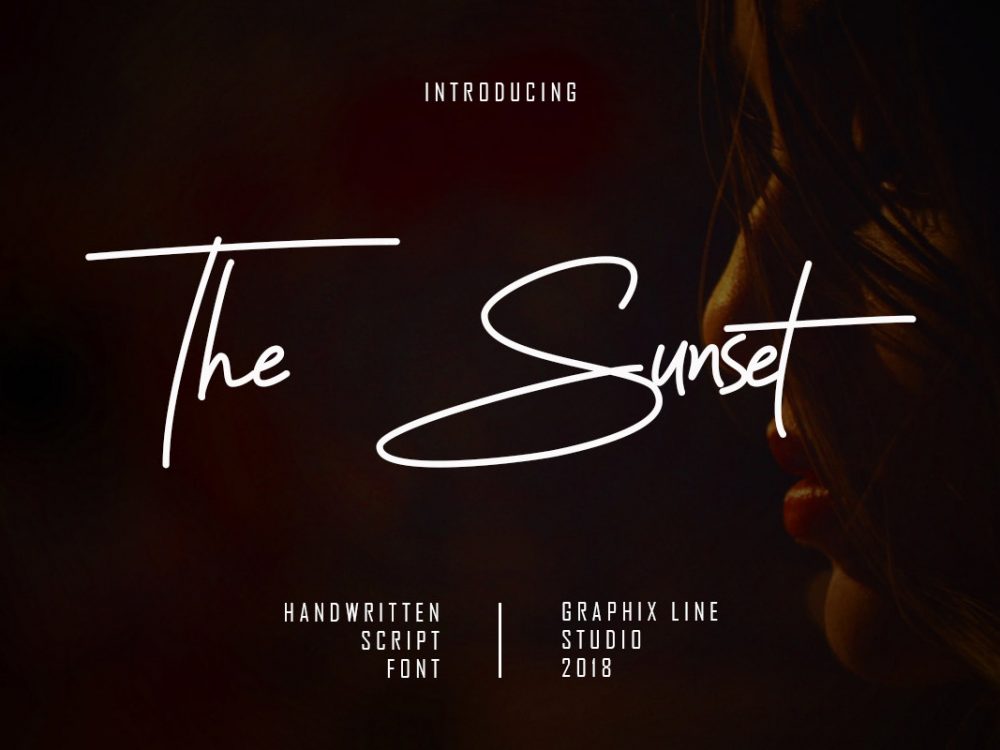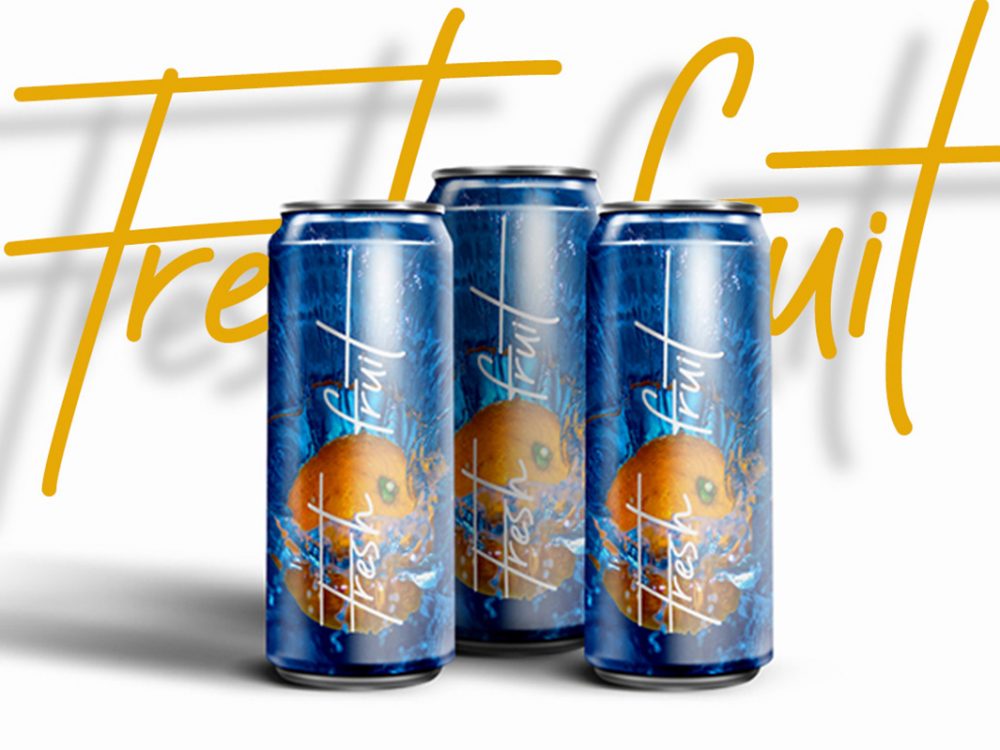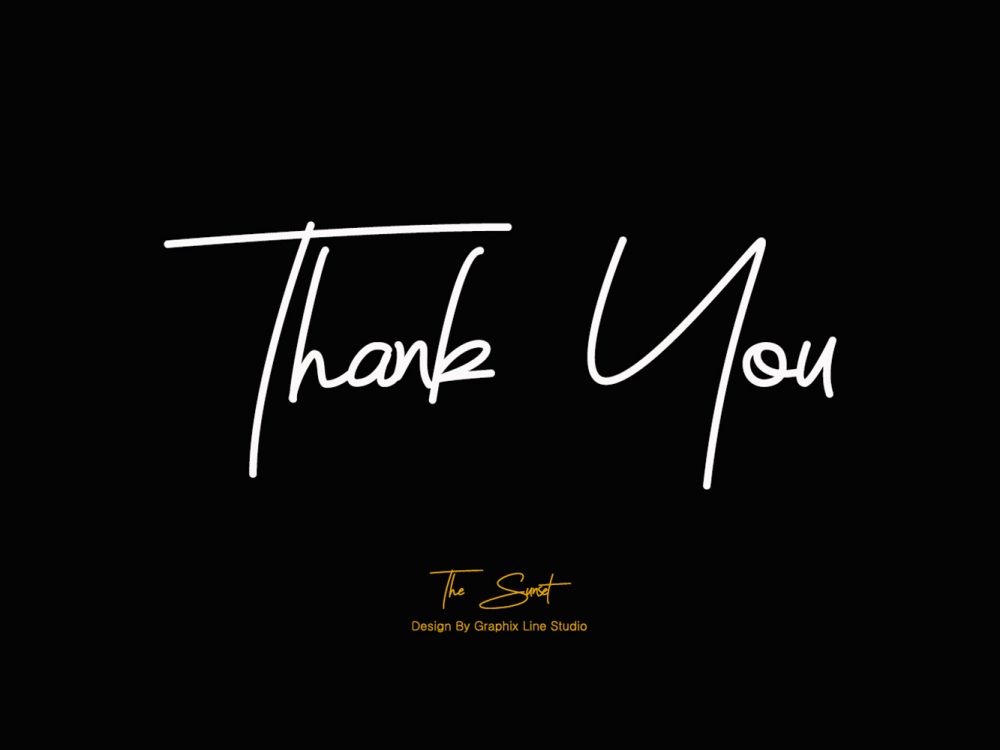
Sunset Signature Font Demo
Sunset Signature Font Demo is an interesting handwritten font that boasts an elegant, fluid style that will give you summer inspiration for your various design projects. This font is very suitable for creating projects that require a script font. These can be posters, cards, invitations, flyers, brochures, prints, and more. If you want to use it for commercial projects, please buy the full version.